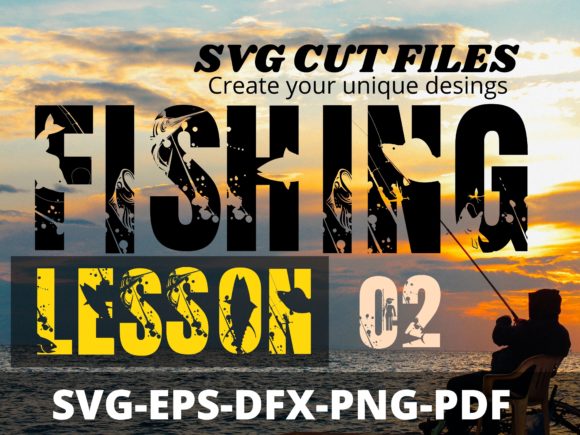
Fishing Lesson Font: A Catch-Worthy Addition to Your Design Arsenal
Are you a designer, crafter, or DIY enthusiast looking for a unique and creative font to add some personality to your projects? Look no further than the Fishing Lesson Font! This innovative SVG font features an array of fish and fishing equipment throughout its letters, making it perfect for a wide range of applications. From invitations and scrapbooking to vinyl decals, paper crafting, apparel, and mugs, this font is sure to hook your audience.
What Makes Fishing Lesson Font So Special?
The Fishing Lesson Font is a creative and bold font that stands out from the crowd. Its unique design features fish and fishing equipment integrated into each letter, giving it a playful and eye-catching vibe. This font is not just a pretty face, though – it’s also highly versatile and can be used in a variety of contexts.
Key Features of Fishing Lesson Font
- Creative Design: The Fishing Lesson Font features a one-of-a-kind design that incorporates fish and fishing equipment into each letter.
- Color Font: The Fishing Lesson Font is a color font, allowing you to add an extra pop of color to your designs.
- Wide Range of Uses: This font is perfect for invitations, scrapbooking, vinyl decals, paper crafting, apparel, mugs, and more.
Here are a few tips and tricks to help you get the most out of the Fishing Lesson Font:
- Experiment with Colors: The Fishing Lesson Font is a color font, so don’t be afraid to experiment with different colors and combinations.
- Mix and Match: Try pairing the Fishing Lesson Font with other fonts and design elements to create a unique look.
- Use it for a Variety of Projects: The Fishing Lesson Font is versatile, so don’t be afraid to use it for a wide range of projects, from invitations to mugs.
Why Choose Fishing Lesson Font?
So why choose the Fishing Lesson Font over other fonts on the market? Here are just a few reasons:
- Unique Design: The Fishing Lesson Font features a one-of-a-kind design that’s sure to stand out.
- High-Quality: This font is made from high-quality SVG files, ensuring that it will look great in any design.
- Easy to Use: The Fishing Lesson Font is easy to use and can be incorporated into your designs in just a few simple steps.
The Fishing Lesson Font is a creative and versatile font that’s perfect for designers, crafters, and DIY enthusiasts. With its unique design, wide range of uses, and ease of use, this font is sure to be a catch-worthy addition to your design arsenal. So why wait? Dive in and start exploring the possibilities of the Fishing Lesson Font today!